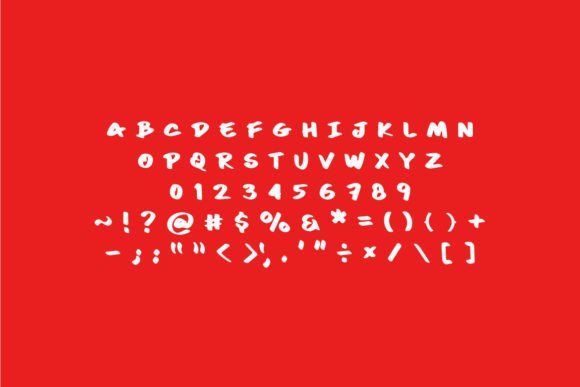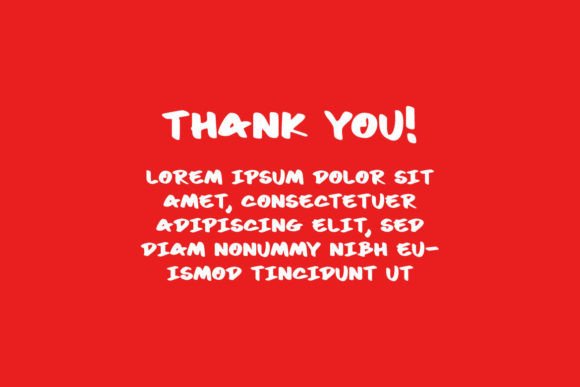
Introduction to Shiro Font
Shiro is a display font with capital letters.
It has a handwriting style that will bring a unique feel to each word Shiro can be used in any work such as children’s books, posters, advertisements, social media content, logos, and many more.
Key Features of Shiro Font